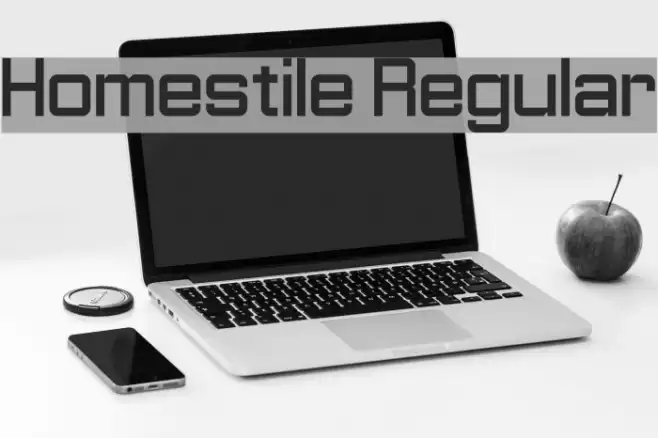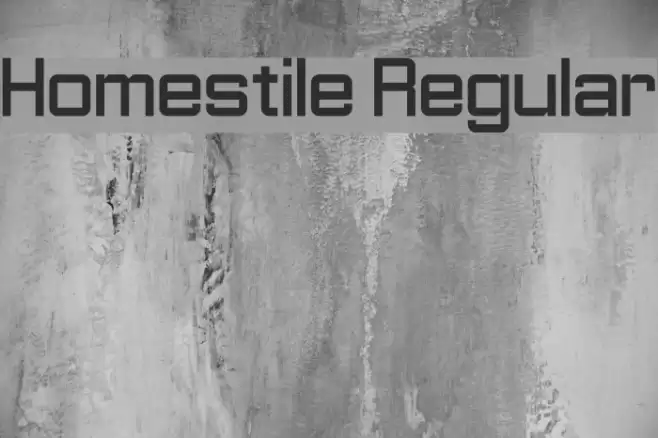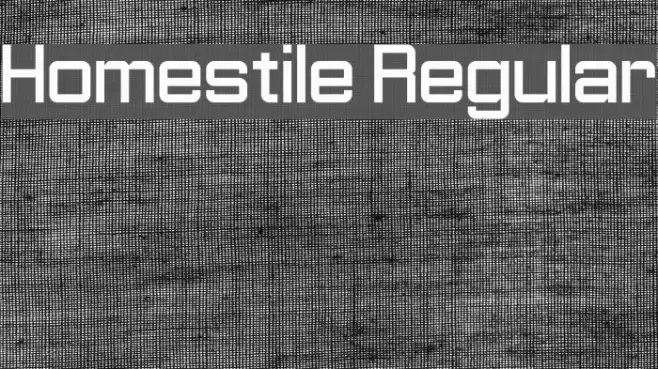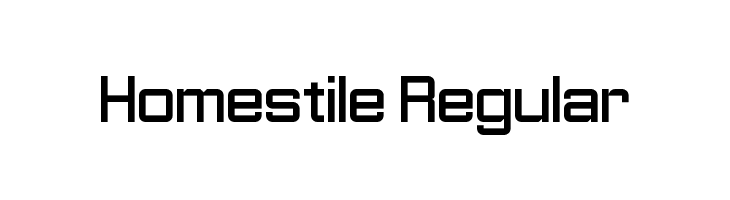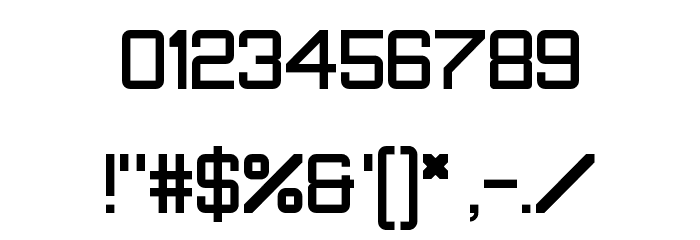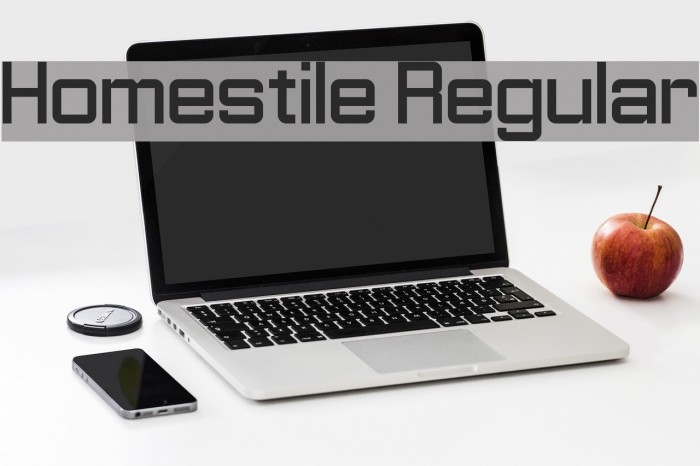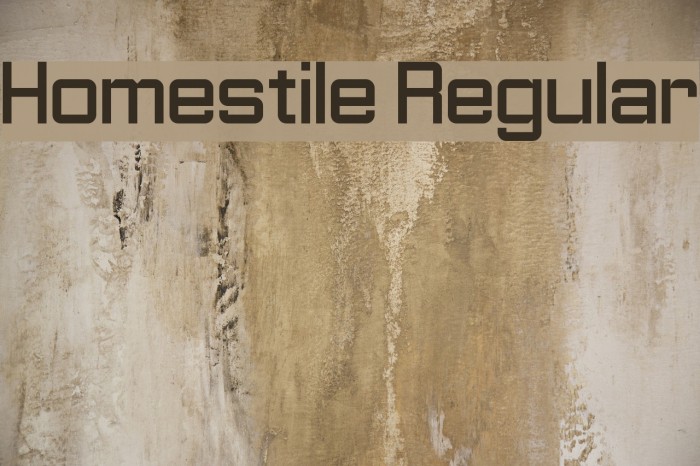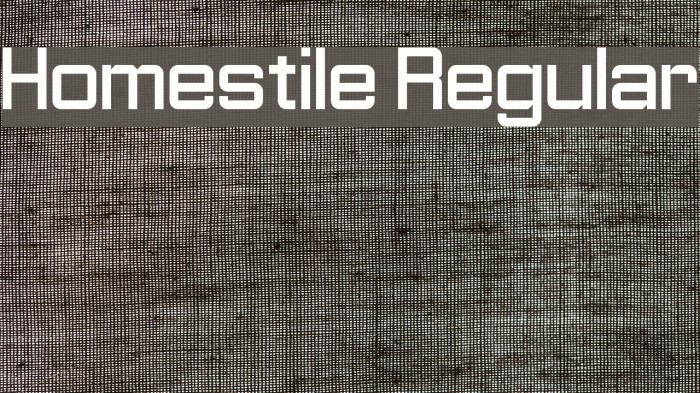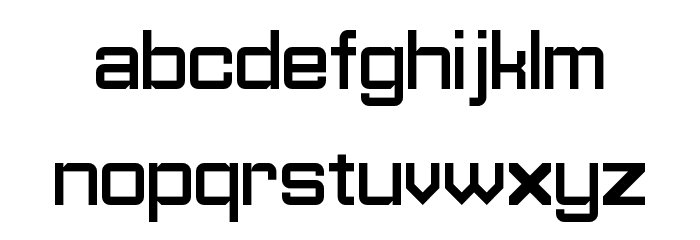
This font features a geometric and modern design with a strong emphasis on clean lines and uniformity. The characters are structured with a squared-off appearance, giving them a technical and futuristic feel. The uppercase and lowercase letters maintain a consistent height, contributing to a balanced and cohesive look. The numerals are equally structured, ensuring readability and clarity. Special characters are designed to match the overall aesthetic, making this font suitable for a variety of digital and print applications. Its distinct style is ideal for projects that require a contemporary and sleek appearance.
A geometric, modern font with clean lines and a futuristic feel from Uncategorized fonts.
- Proposed Projects: Ideal for technology branding, digital interfaces, modern advertising, and editorial design.
- Use Case: Headlines, Logos, Digital interfaces